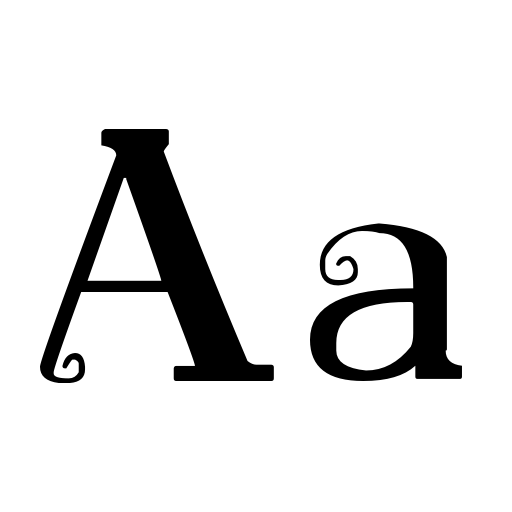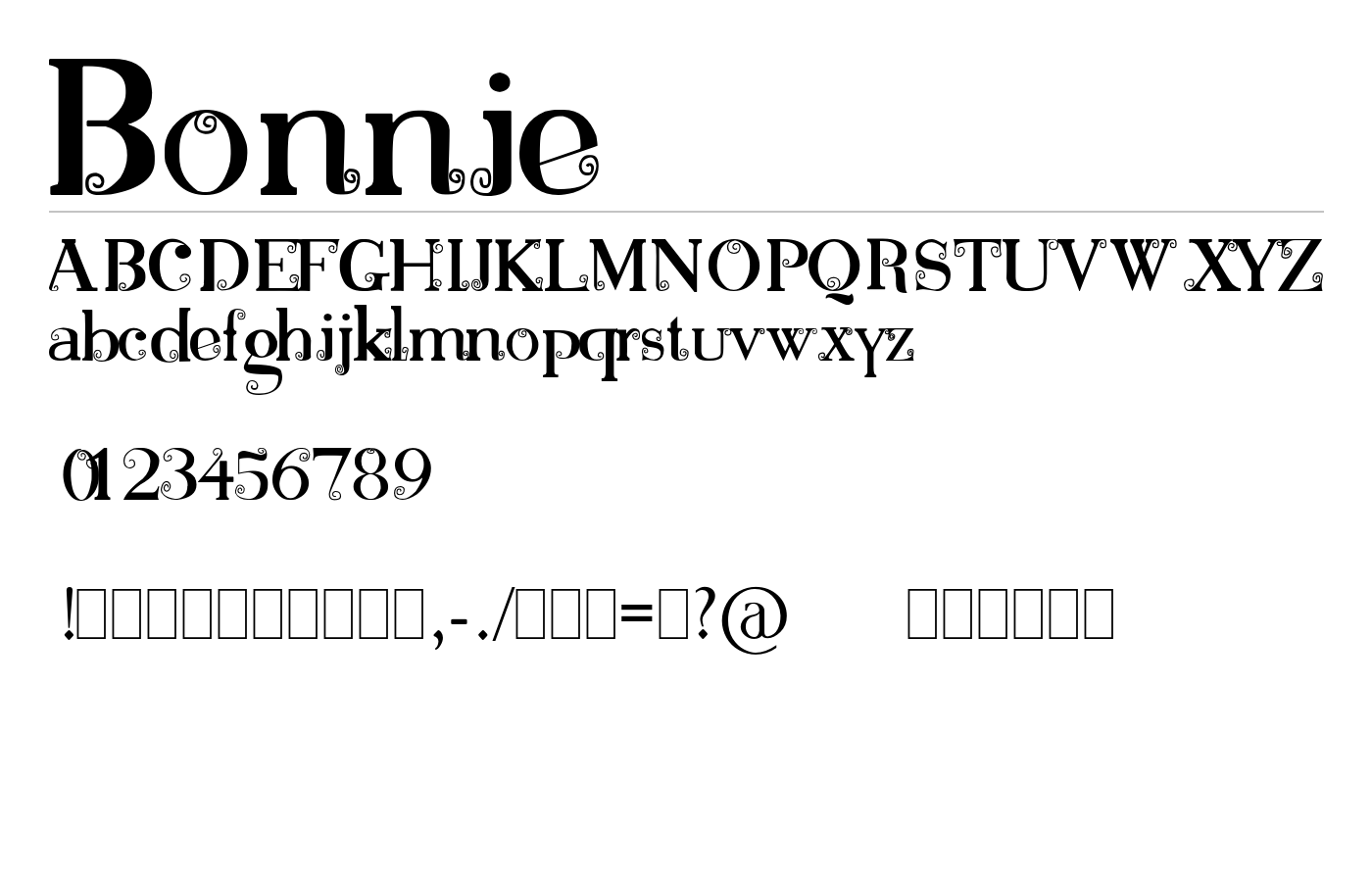
Bonnie Font is a whimsical serif typeface featuring playful, curled decorative elements that give it a charming and vintage-inspired personality. Its medium weight, moderate contrast, and unique swirls on letters and numbers make it ideal for creative branding, invitations, and headlines that want to capture attention with a touch of elegance and fun. This font works best in designs seeking a distinctive, artistic flair that balances classic serif structure with lively ornamentation.
Bonnie Font
About Bonnie Font